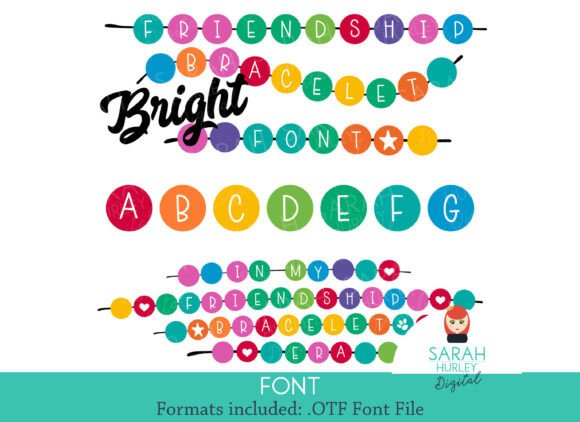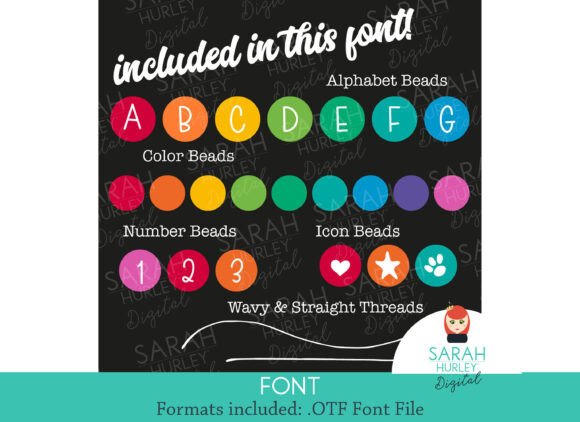
Friendship Bracelet Bright Font is a colorful and vibrant typeface inspired by bead bracelet designs. Each letter is enclosed in a bright, cheerful bead, making it perfect for kids’ crafts, party invitations, DIY projects, and playful branding. Add a nostalgic and creative flair to your designs with this unique and lively font!
Friendship Bracelet Bright Font